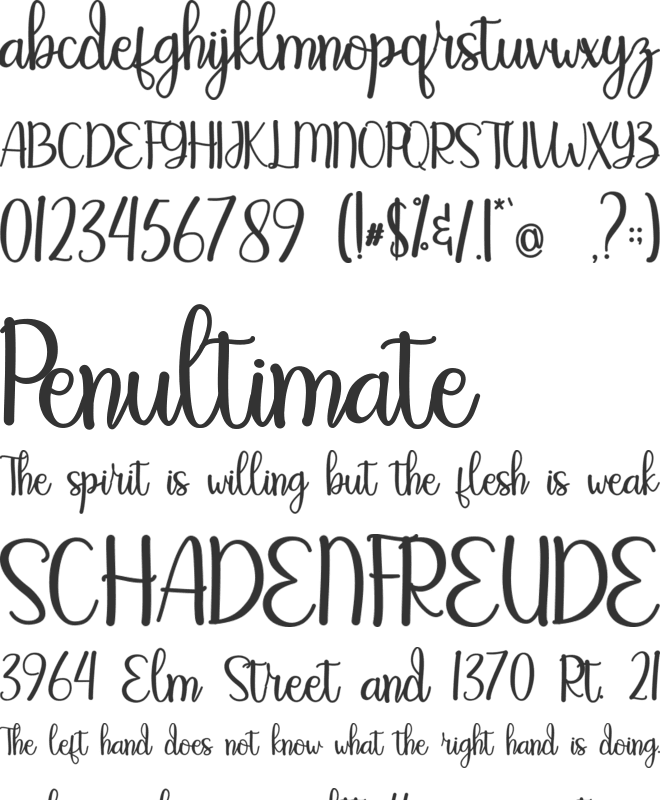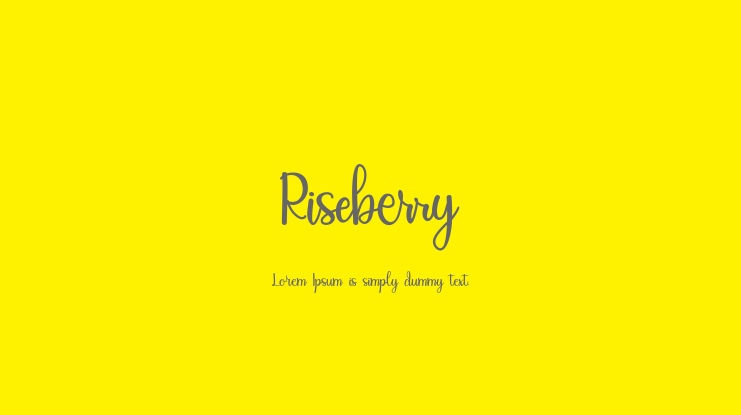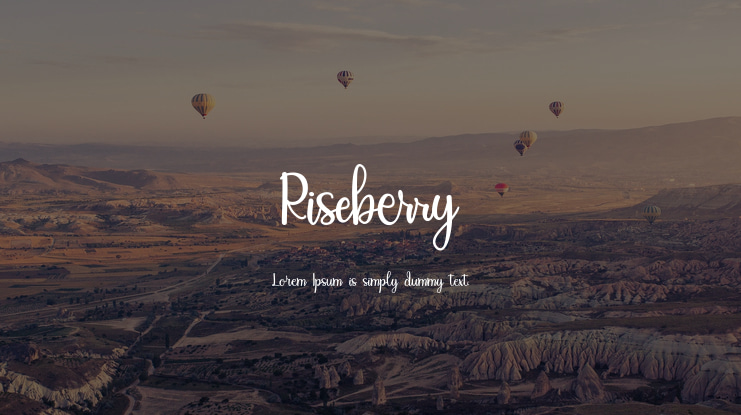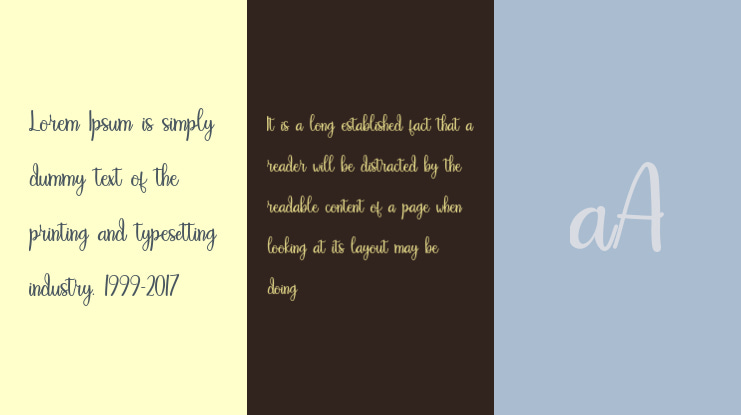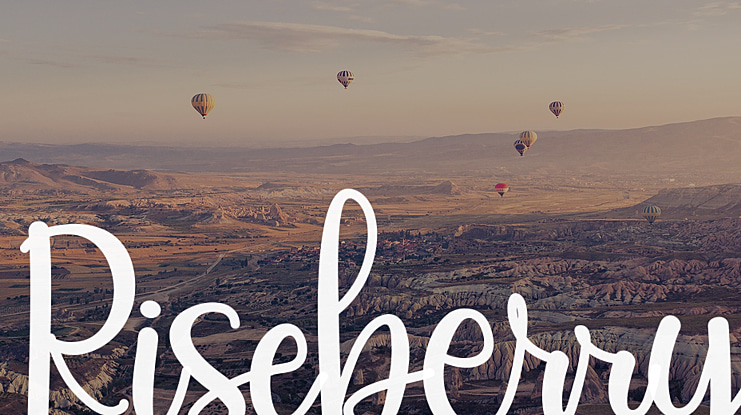
Riseberry Font
Riseberry is a simple lovely and romantic handwrittten font made by Endri Sulistyawan. This font is good to type on weeding invitation, printed quotation, greeting card, birthday card, and etc.